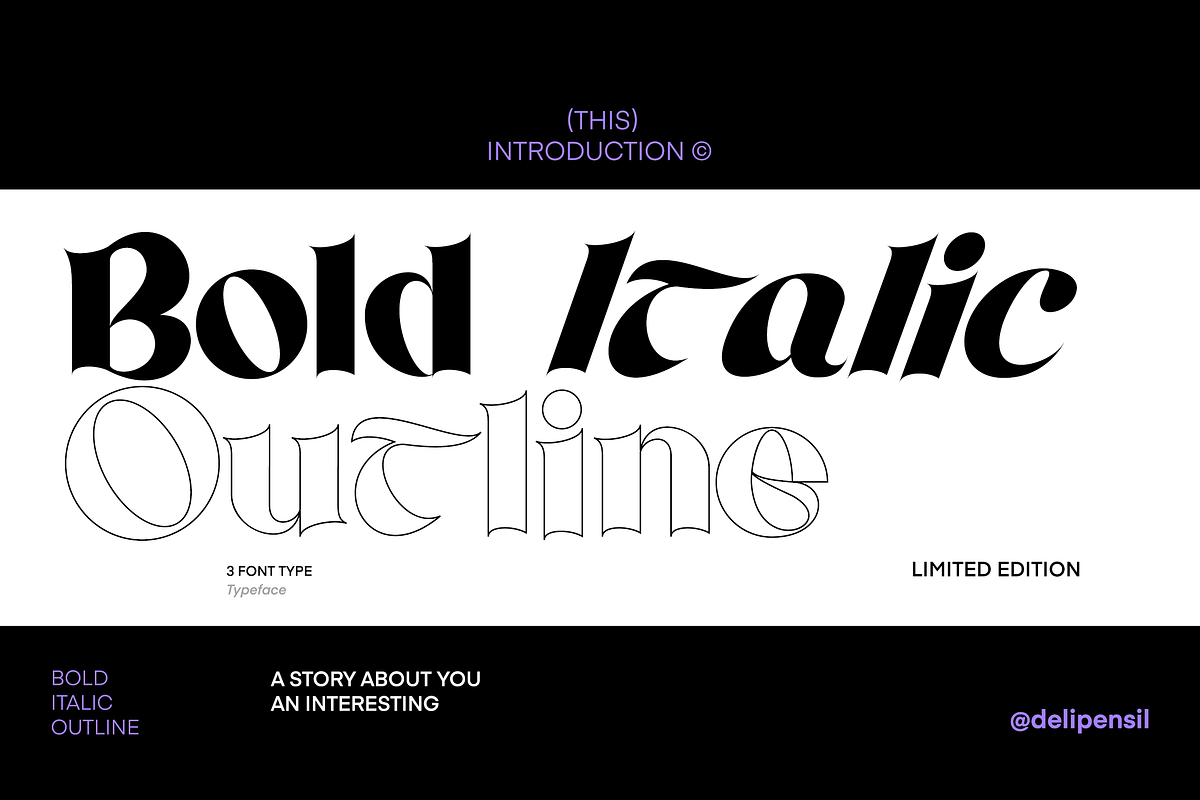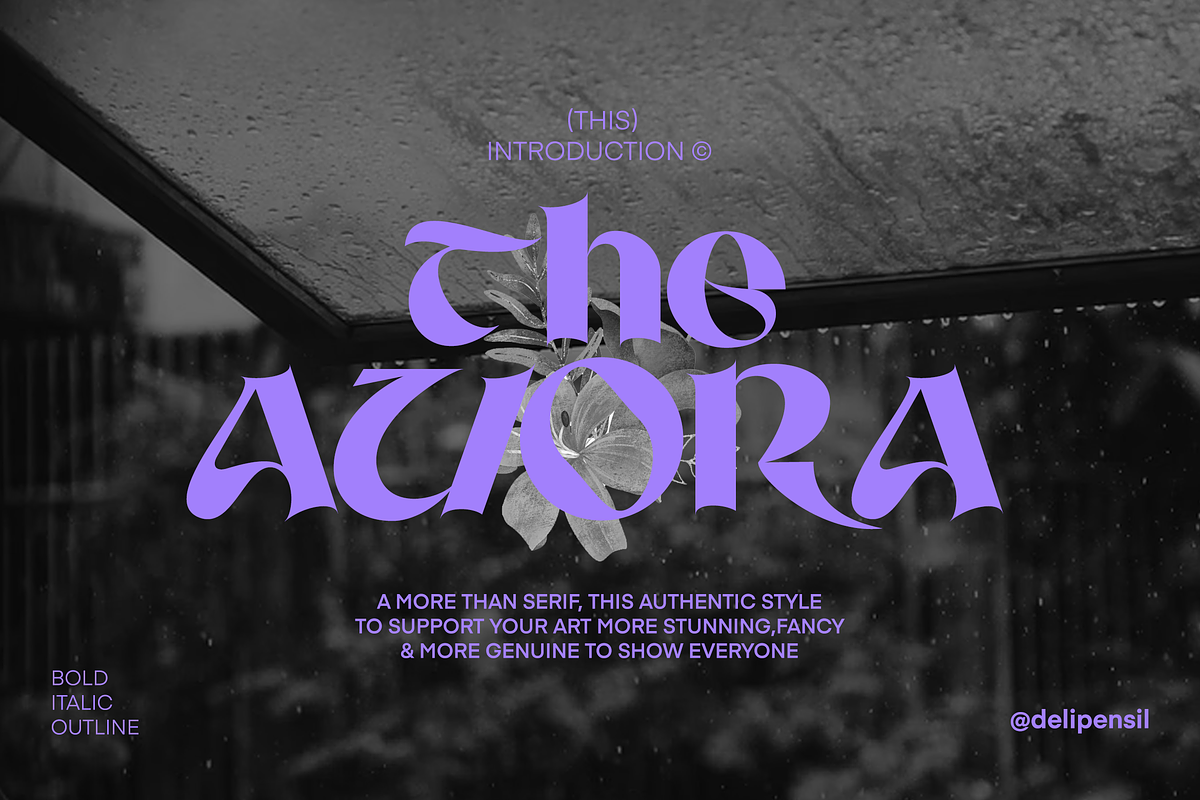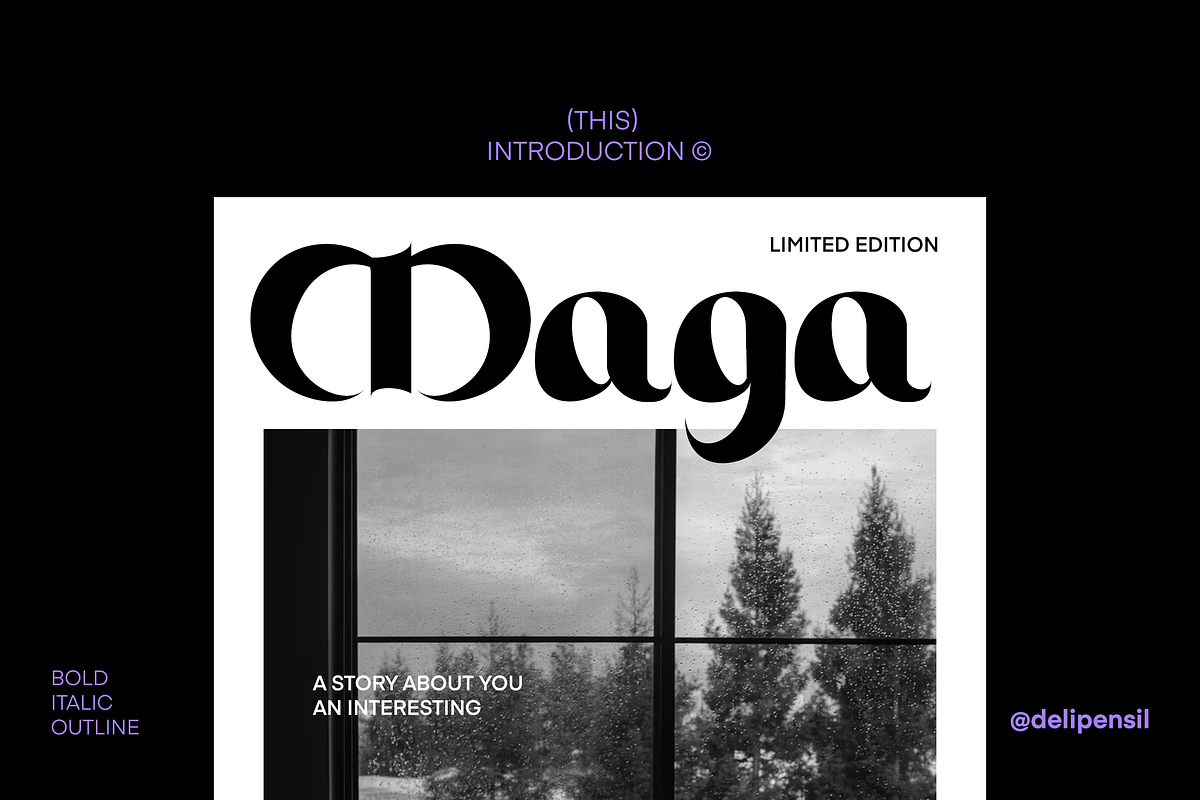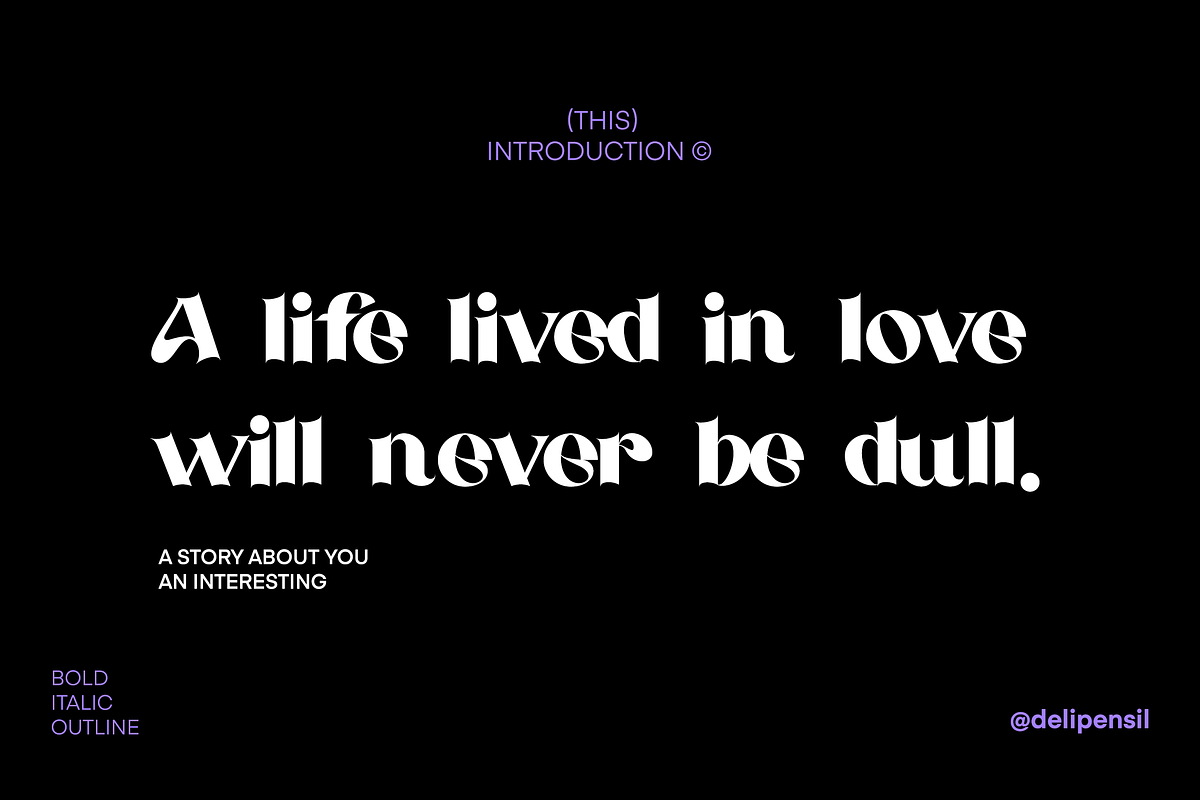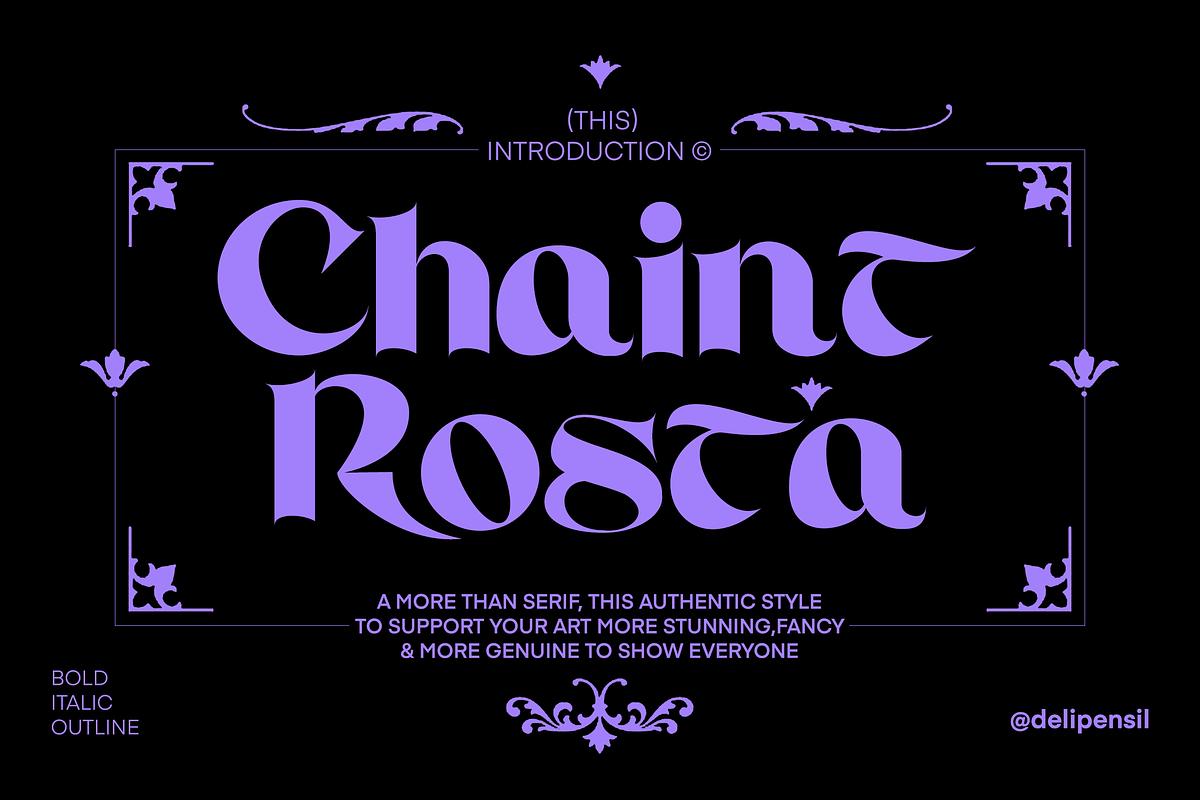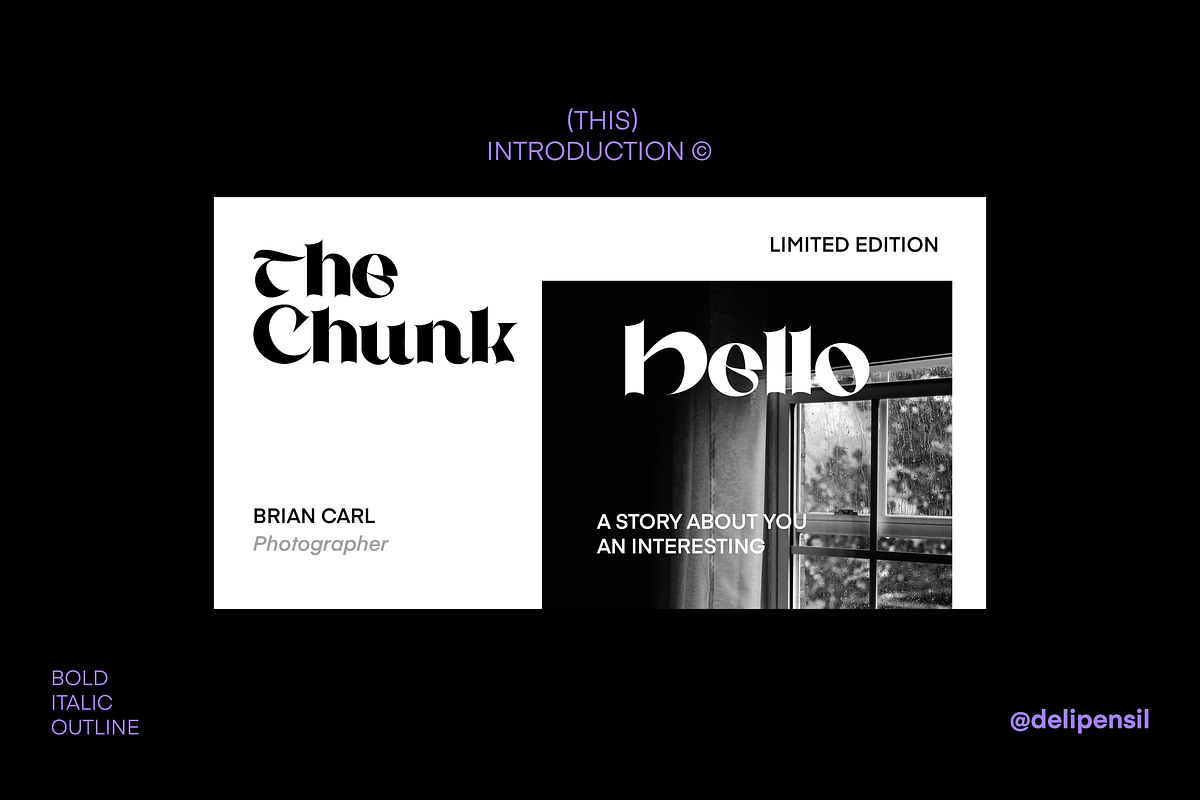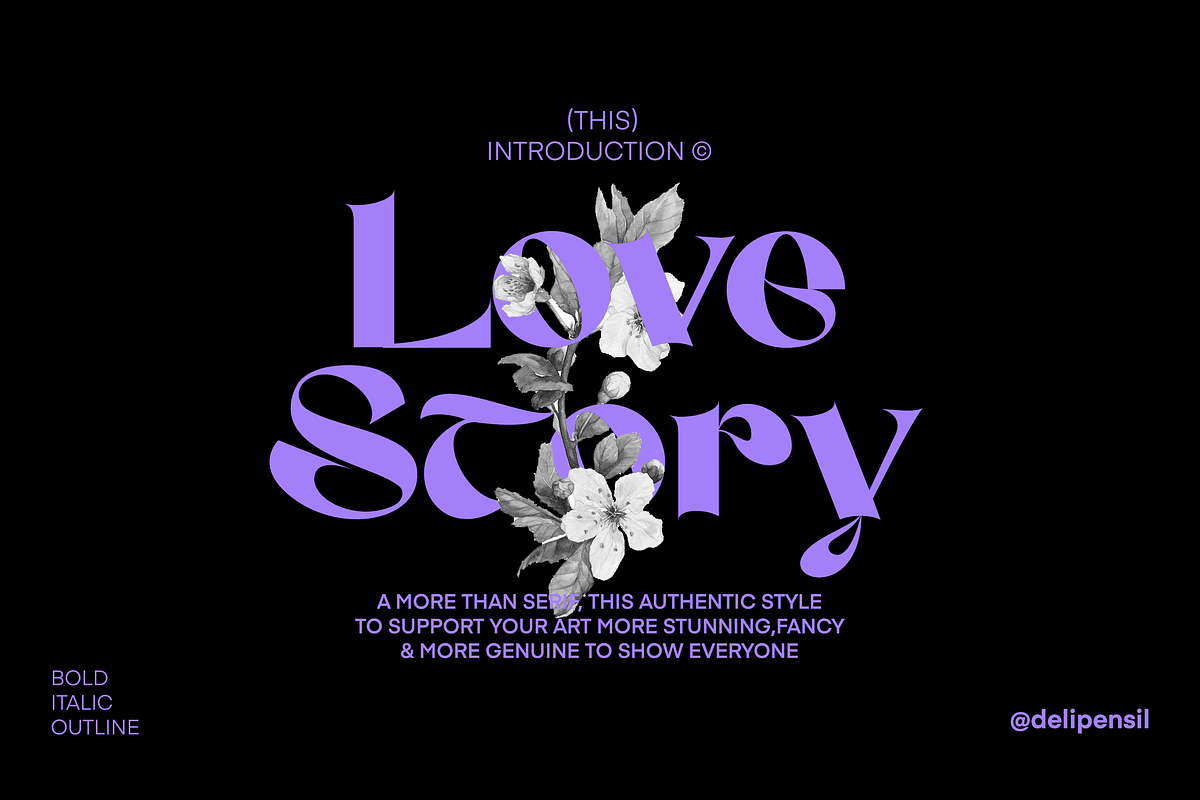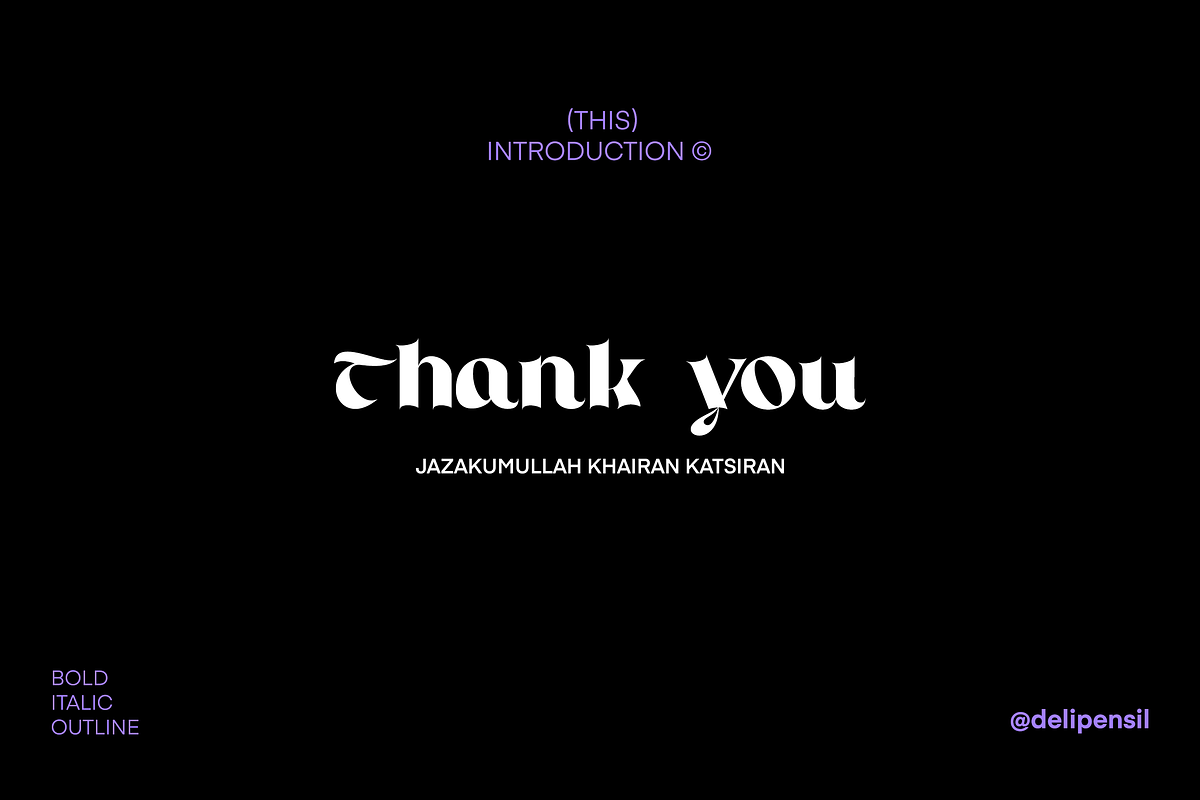
AUORA Vintage Modern Typeface
Bismillah, Introduction AUORA Modern Serif Classic/Vintage Typeface 👑✨
This great time to make your design more stunning with AUORA Typeface, a beauty Font to grow your design and this font made for Vintage and Retro feel, we already now you here to find out the font to suitable for Branding Staff, Magazine Title, Product Company, Logo, & Many More, and Yes you on the right place :)
- AUORA Font Style
- AUORA Numeral & Punctuation
- AUORA Kerning Style
- AUORA 3 Typeface (Bold, Italic, Outline)